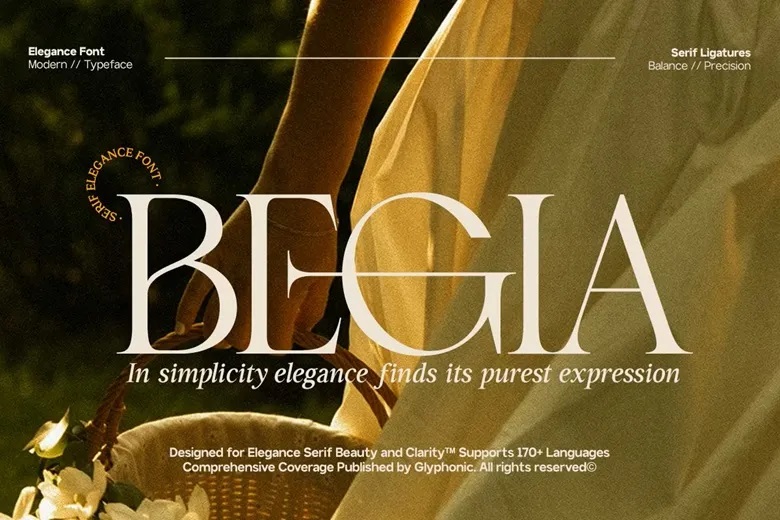
GC Begia Font
GC Begia is a sophisticated serif font meant to convey classiness, sophistication, and modern luxury. It has luxurious letterforms, correct proportions and well-developed details making it present itself with a confident and high-quality voice which is exquisite both in the digital and print media.
GC Begia works well with high-end branding, fashion editorial, beauty packaging, high-end logos, and advanced visual identity. The graceful rhythm and clean structure of it enable all the words to be sophisticated and have high readability.
GC Begia Serif Font